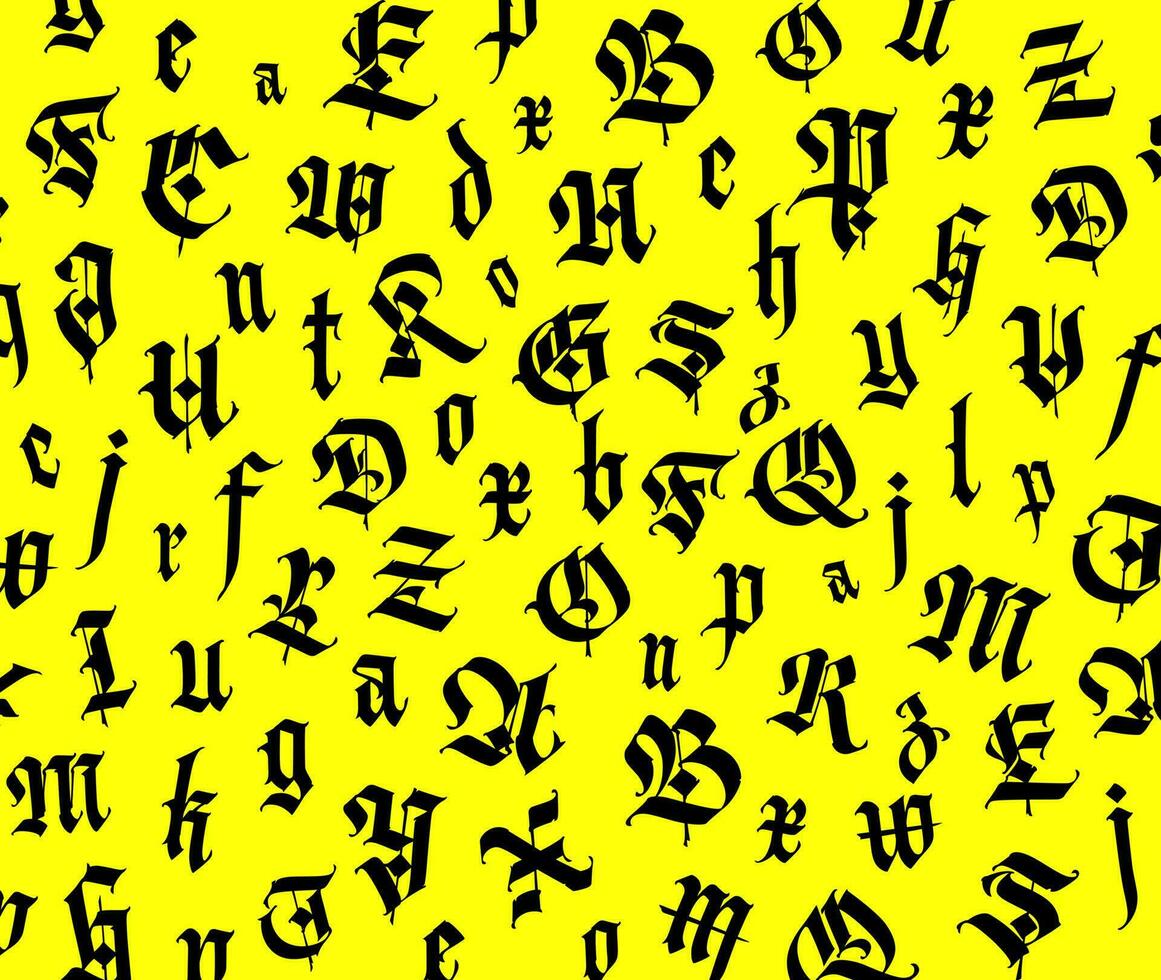
Gothic font, composition. Vector. Medieval Latin letters. Random letters in random order. Black letters isolated on yellow background. Design for fabric and packaging. Pro Vector